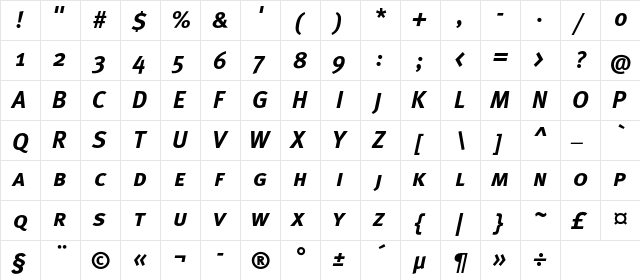
MetaBoldCapsC Italic
Design Context for MetaBoldCapsC Typeface
MetaBoldCapsC is a composed and adaptable typeface that performs quietly and consistently across a wide range of design contexts. The dynamic lean of this cut emphasises speed and emphasis in any layout. The heavy weight commands attention and anchors typographic hierarchies.
Pro Tip: Use MetaBoldCapsC for emphasis, pull quotes, and subheadings where its slanted energy can add rhythm to the layout.